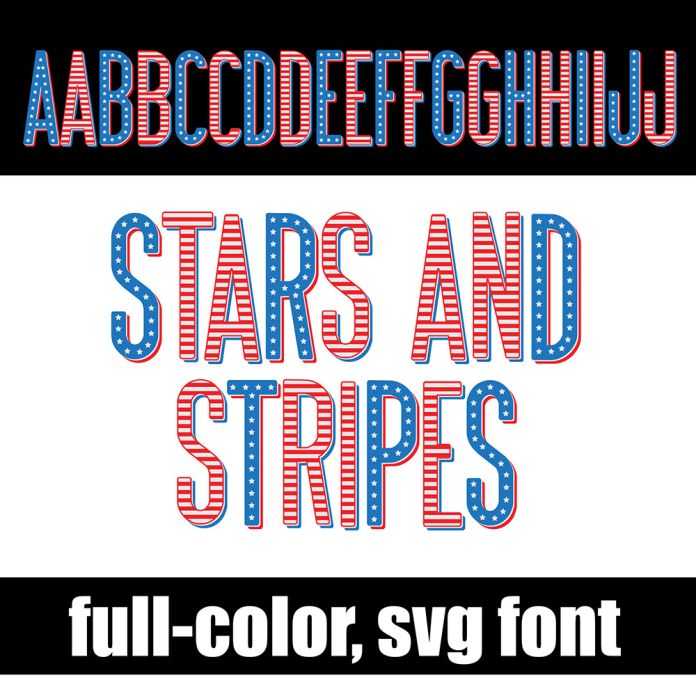
Stars and Stripes Color Font
This full-color font features a graffiti style font in a patriotic color palette. There is an alt case w/ additional colors you can access through your system or Silhouette's glyph map. This font works best for titles, displays, posters and more. Please note color fonts will show as black in non compatible programs. This font type is compatible with Silhouette Studio.